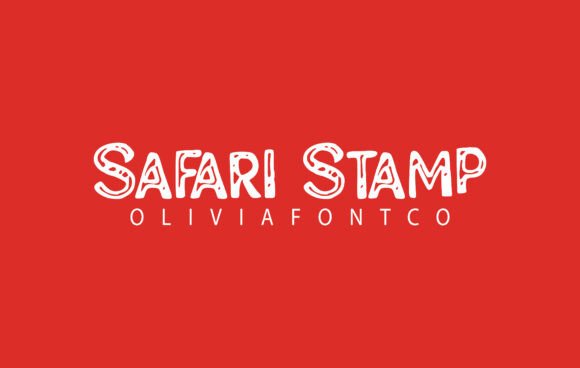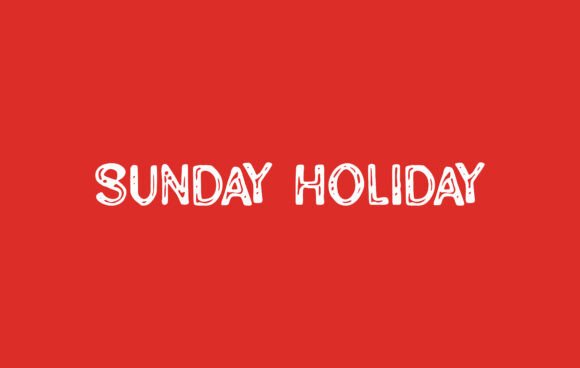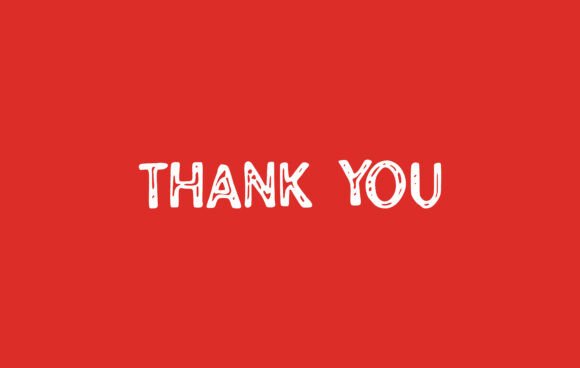
Safari Stamp Font: A Cute Handwritten Font for Crafts & Cricut
About the Safari Stamp Font
Meet Safari Stamp Font, a stunning font that brings a touch of elegance and professionalism to any design. Safari Stamp font is an authentic handwritten font with a romantic touch. Expertly designed to be a true favorite, this font has the potential to take your creative ideas to the highest level
Safari Stamp’s romantic, handwritten style shines brightest in headlines, short text blocks on branding materials, and invitations. Its slightly informal nature makes it ideal for projects emphasizing handcrafted quality or a vintage aesthetic. Avoid using it for lengthy body copy or UI elements; legibility suffers in extended use.
Pairing it with a clean sans-serif like Montserrat for body text creates a strong visual contrast and enhances readability. For a more luxurious feel, consider a classic serif such as Garamond. Conversely, a playful script font could complement its romantic energy, depending on the desired overall effect.
The font exudes a warm, friendly, and approachable personality, making it well-suited to brands focused on artisanal goods, lifestyle products, or events with a romantic or nostalgic theme.
Safari Stamp Font Usage Examples
Safari Stamp Font Example